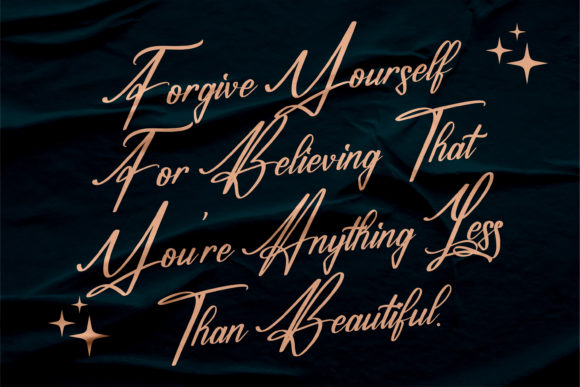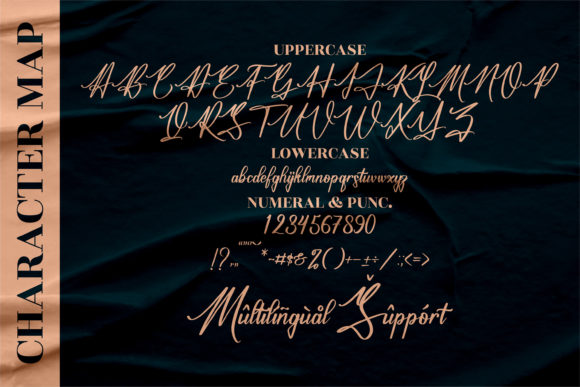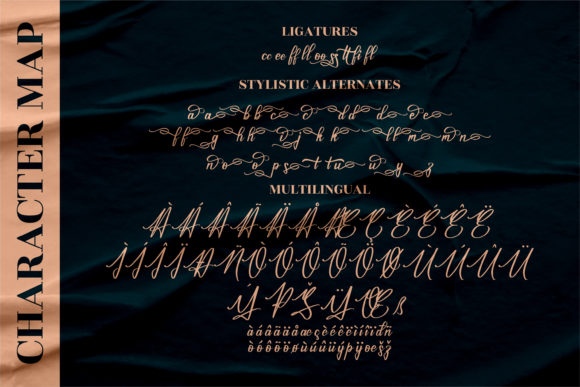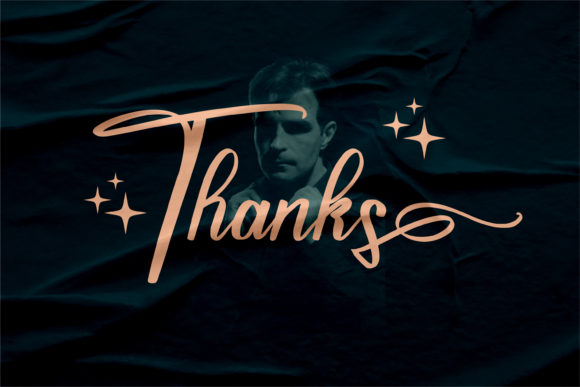
About Jamesttedy Signature Font
Jamesttedy Signature is a sweet and cursive handwritten font. This gentle font will look gorgeous on a variety of design ideas. Jamesttedy Signature is PUA encoded which means you can access all of the glyphs and swashes with ease!Â